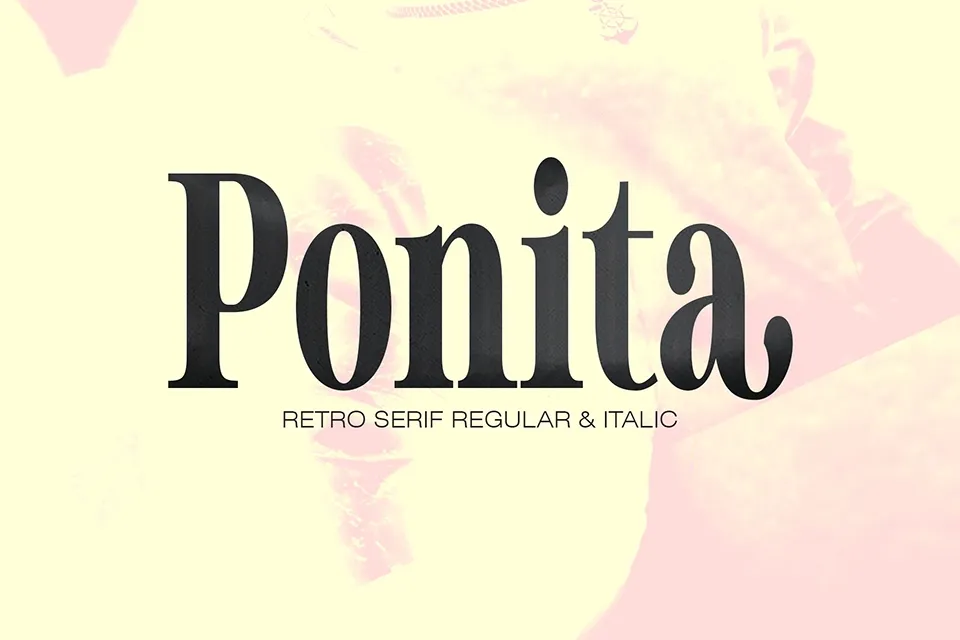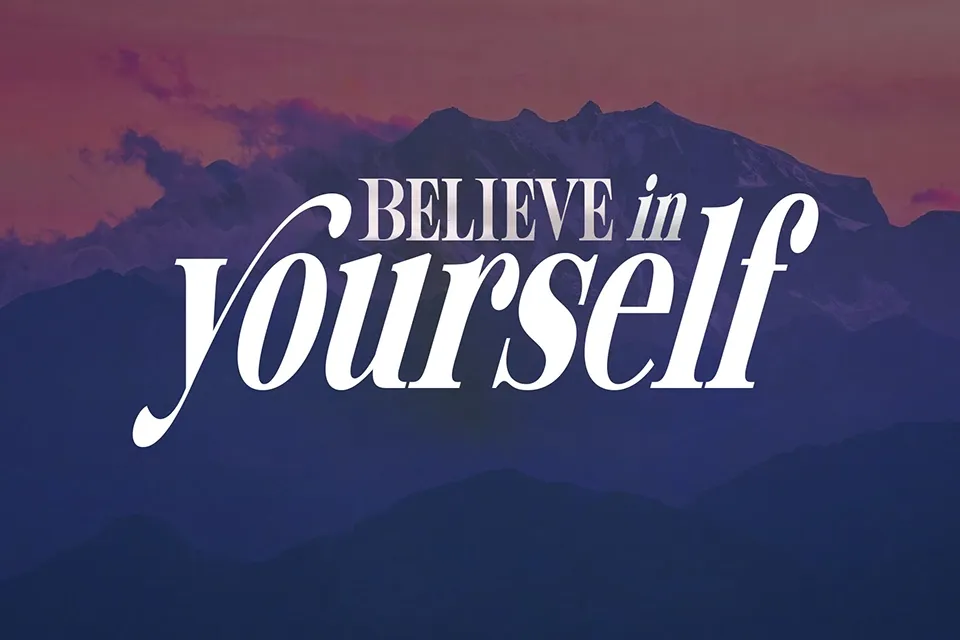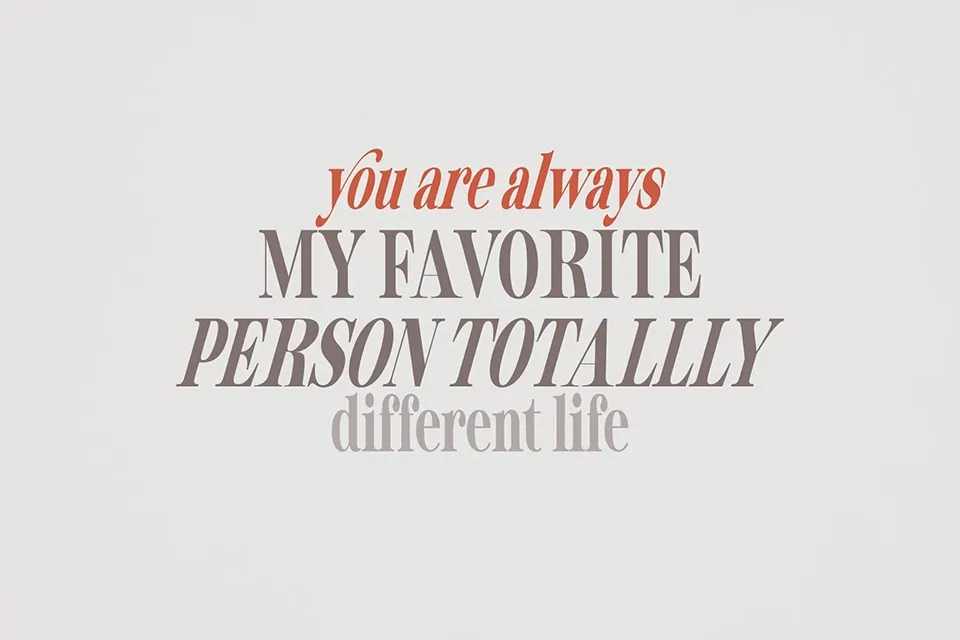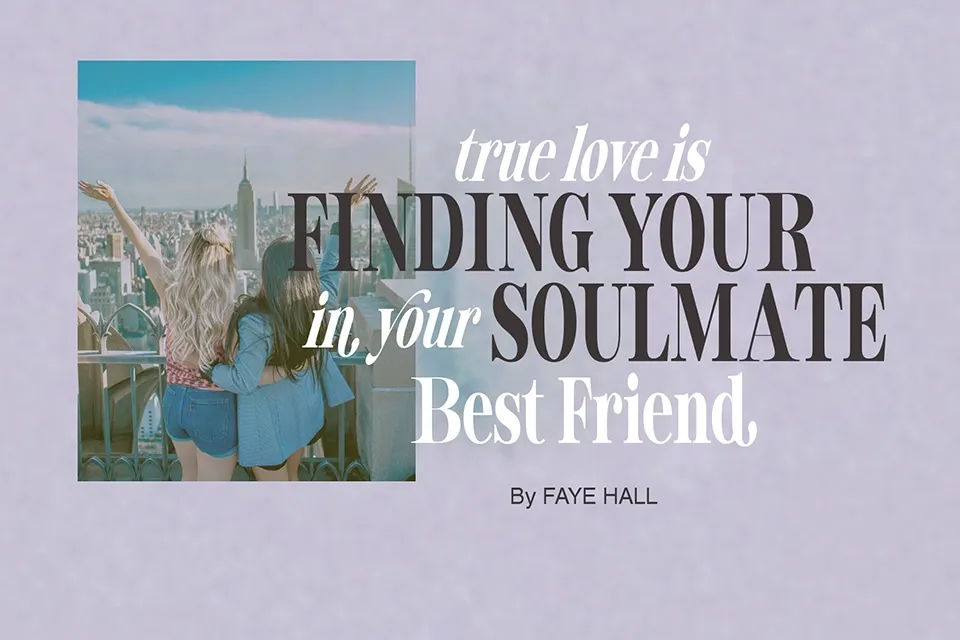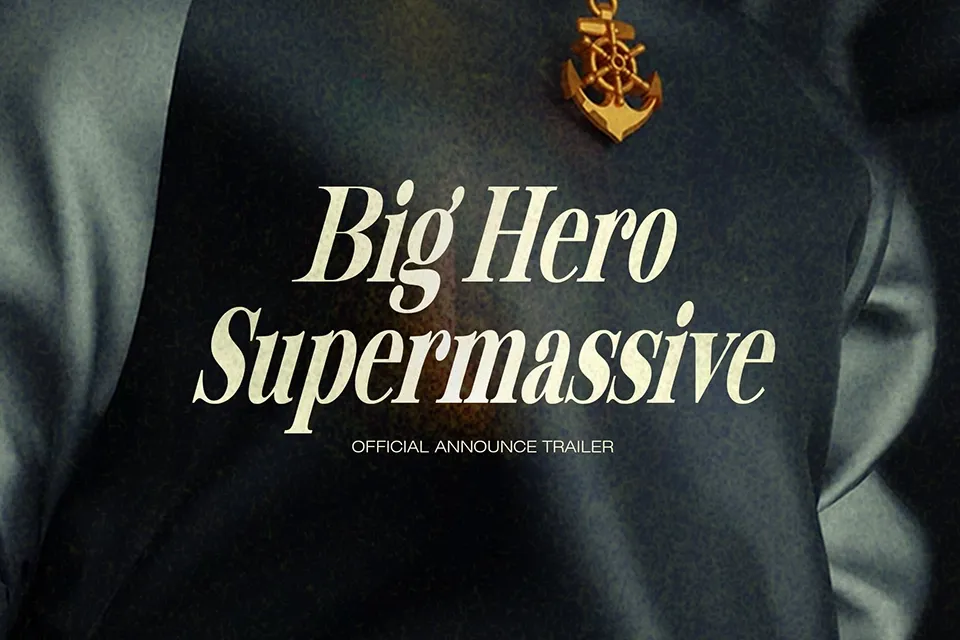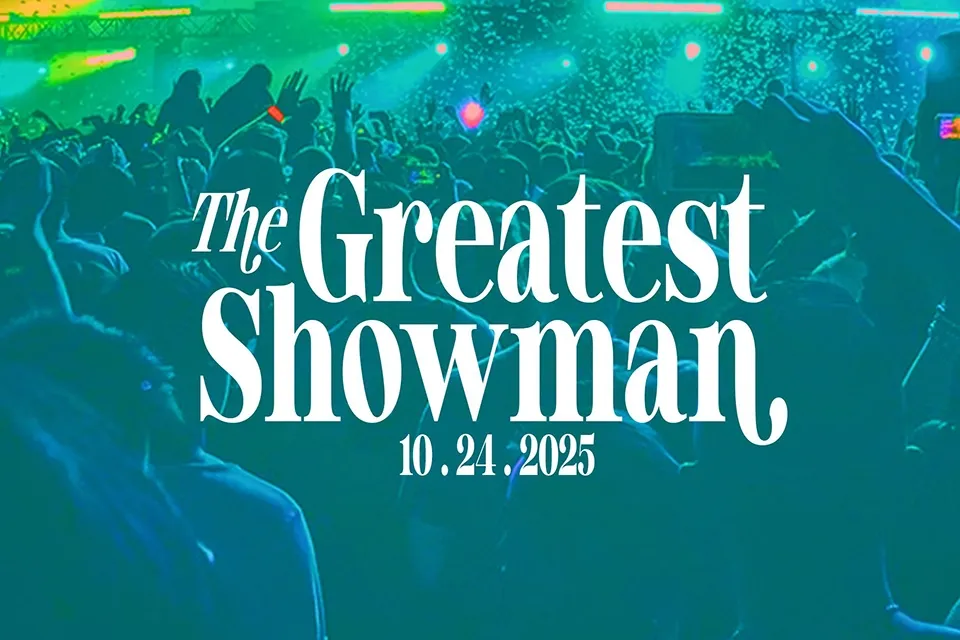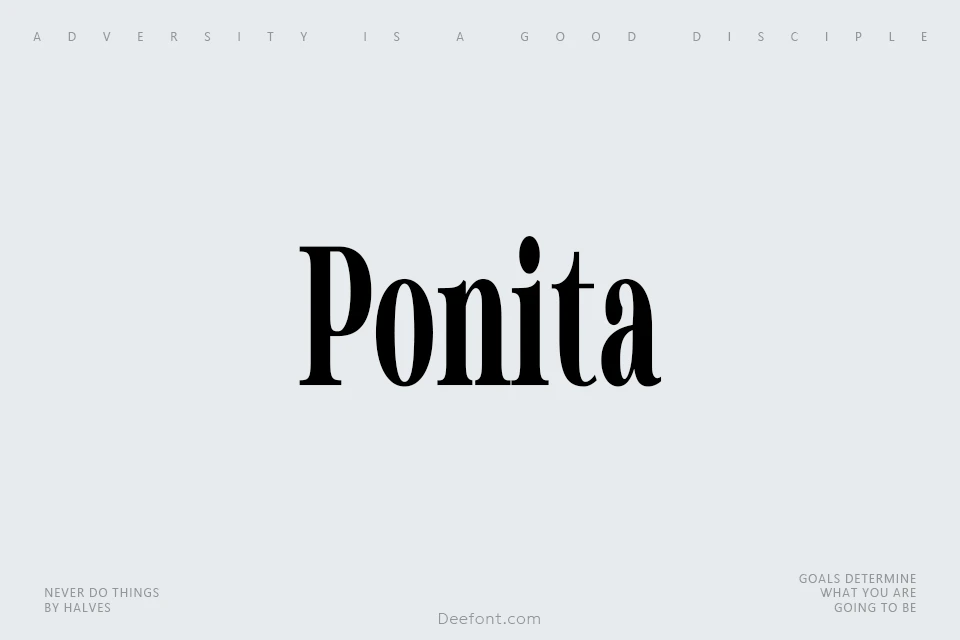
Ponita Font
Ponita Font is a stunning retro serif typeface that combines vintage charm with modern elegance. Featuring bold, curvaceous letterforms and smooth serifs, it exudes sophistication and style, making it perfect for a variety of creative projects. Whether used for branding, logos, headlines, or editorial designs, Ponita Font commands attention with its timeless appeal and versatility. Its regular and italic styles provide flexibility, allowing you to create dynamic compositions that stand out. With its nostalgic yet contemporary vibe, Ponita Font is the ideal choice for designers looking to infuse their work with character and a touch of retro flair.